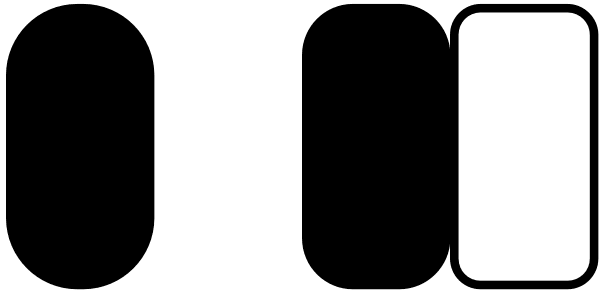
ION A
ION A is a part of the ION superfamily, which consists of 3 families: condensed (ION A), normal (ION B) and wide (ION C), each having a compelling range of 10 weights. Styles Thin to Black have 436 glyphs supporting more than 70 Latin-based...